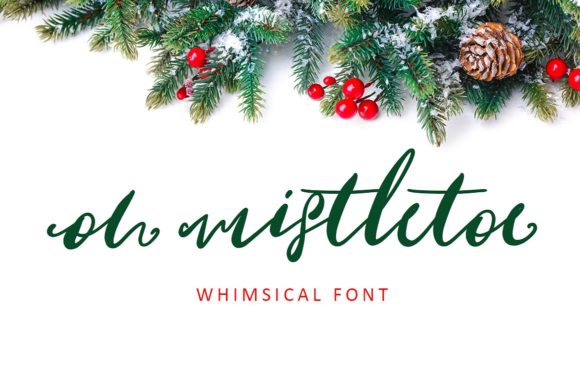
Oh Mistletoe Font
Behold, the enchanting Oh Mistletoe Font, a delightful script font infused with holiday cheer! Creativeqube Design, the ingenious minds behind this font, have crafted an irregular masterpiece that exudes holiday charm.
Picture this: a Christmas card adorned with heartfelt messages, penned in the whimsical strokes of Oh Mistletoe. Its playful curves dance across the page, carrying tidings of joy and merriment. Or, envision handwritten notes expressing gratitude and love, each word imbued with a touch of festive magic.
With Oh Mistletoe, the possibilities are endless. This versatile font lends itself effortlessly to a multitude of holiday-themed projects. Create eye-catching posters, gift tags, and festive social media posts that radiate warmth and cheer. The font's distinct character adds a personal touch to any design, making it a cherished addition to your creative arsenal.
Let the joyful spirit of Christmas come alive through the strokes of Oh Mistletoe. Embrace the magic of the season and elevate your holiday creations with this enchanting font. It's the perfect font for capturing the essence of Christmas, whether you're designing for personal use or for clients who seek a touch of holiday charm.